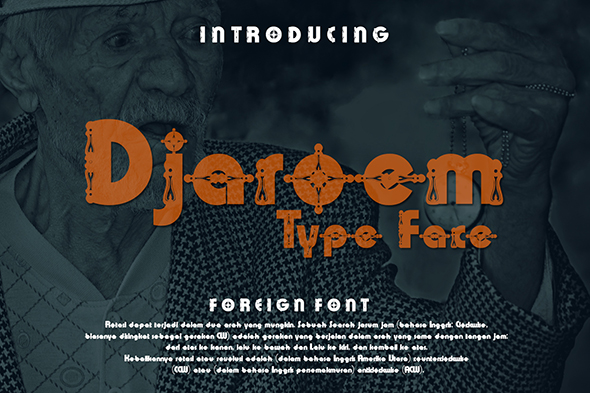
Introducing Djaroem, a captivating decorative font family that will ignite your creativity and transform your digital designs. With its intricate and expressive characters, Djaroem invites you on an enchanting journey into the realm of visual storytelling.
Indulge in the allure of Djaroem, a font crafted with meticulous precision to evoke a sense of elegance and sophistication. Each character dances upon the page, capturing the essence of artistic flair and exuding an aura of timeless charm.
Unleash your imagination with Djaroem, a versatile font family that empowers you to express your unique style. Its captivating curves and graceful flourishes add an air of enchantment to any project, whether it's a heartfelt message, a captivating logo, or a stunning website design.
Djaroem is not just a font; it's an invitation to embrace your creativity and captivate your audience. Its captivating characters will leave an enduring impression, transporting you to a world where imagination reigns supreme. Enhance your digital creations with Djaroem, and let your designs bloom with unparalleled beauty.